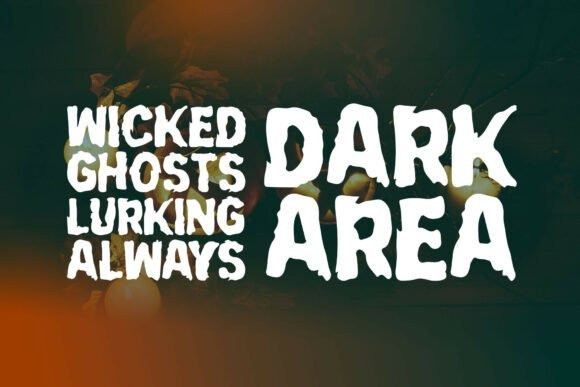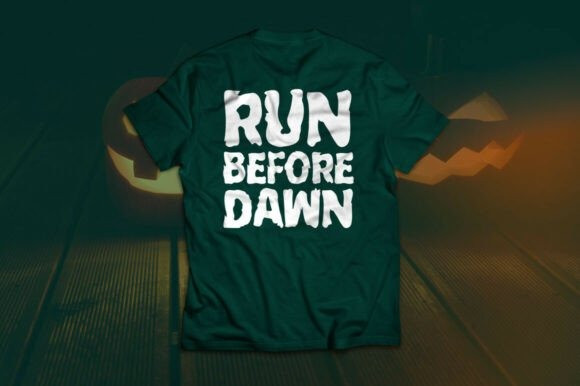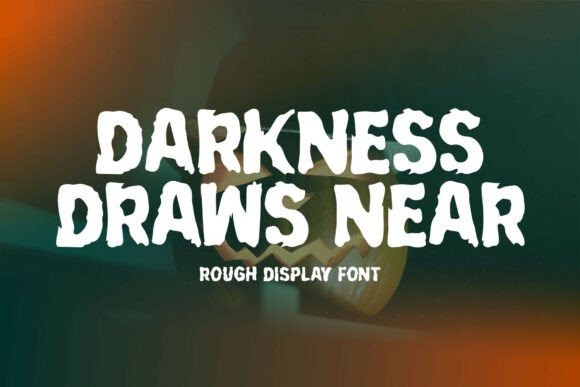
Darkness Draws Near Font
Darkness Draws Near Font is a rugged display font with an intense, gritty personality. Perfect for projects that need a raw, dramatic touch, it works seamlessly for logos, apparel, posters, flyers, album covers, web headers, and print materials. Whether used for dark-themed designs or bold branding, this font delivers striking visual impact.